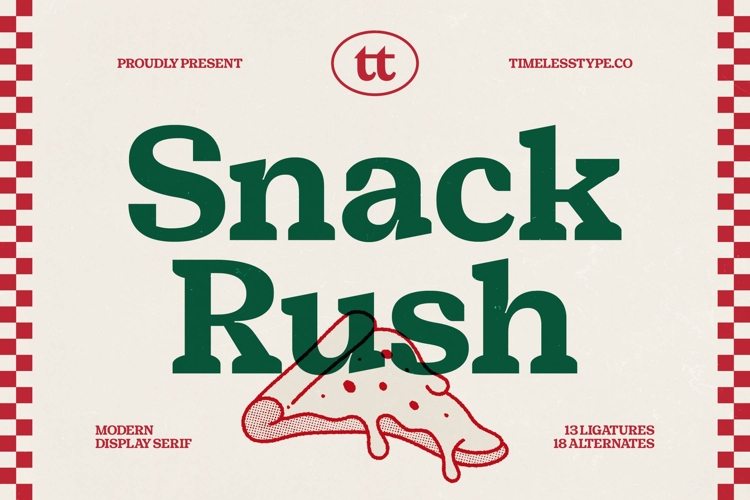
Snack Rush - Modern Display Serif
Snack Rush is a bold modern display serif designed with strong curves, sharp character forms, and a nostalgic diner-inspired personality. Its playful yet sturdy structure makes it perfect for food branding, retro packaging, café menus, poster headlines, restaurant signage, and eye-catching editorial layouts.
With 13 ligatures and 18 stylistic alternates, Snack Rush gives you the flexibility to build expressive titles that carry charm, confidence, and a delicious visual punch. Ideal for designers who want a serif that feels bold, friendly, and irresistibly fun.